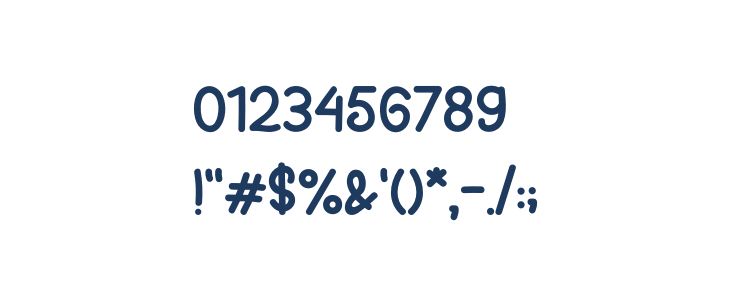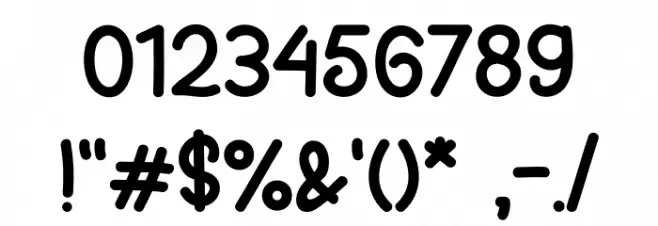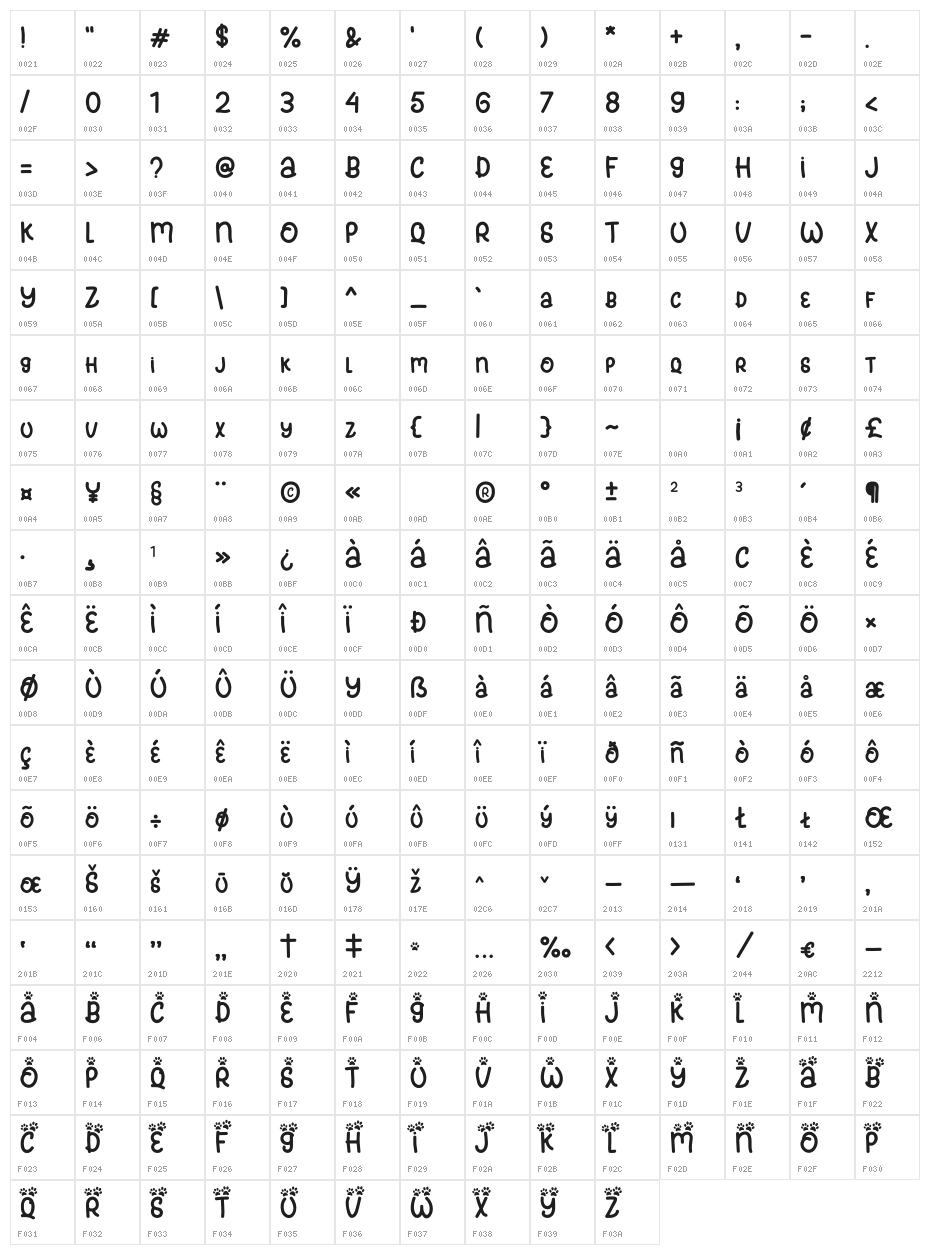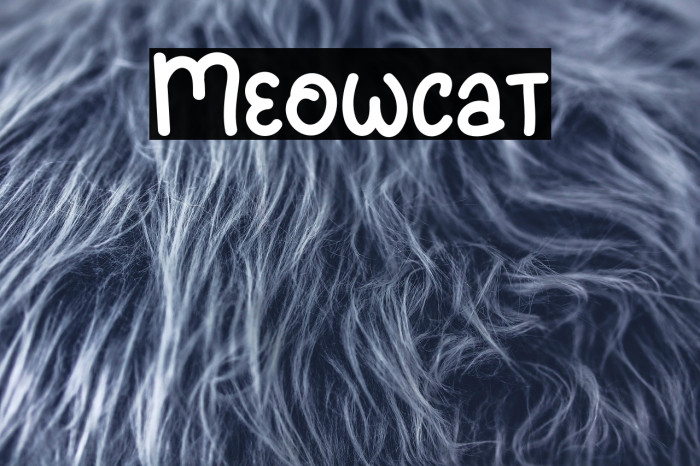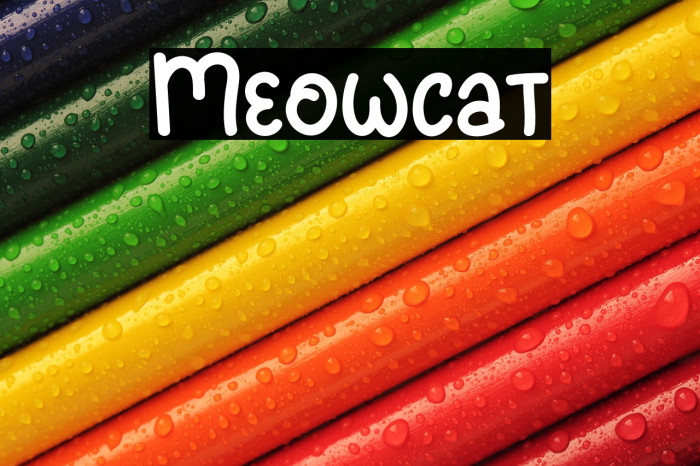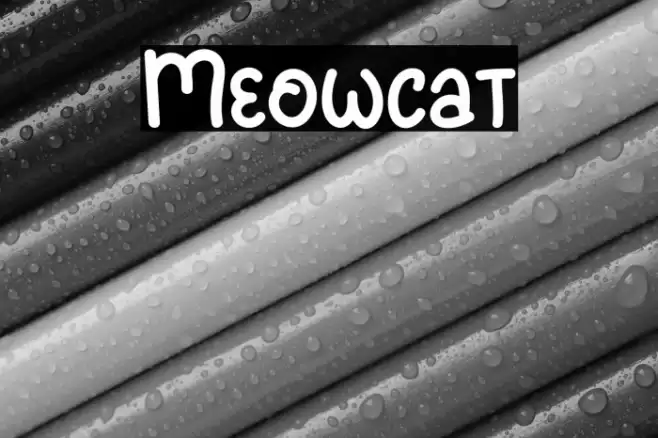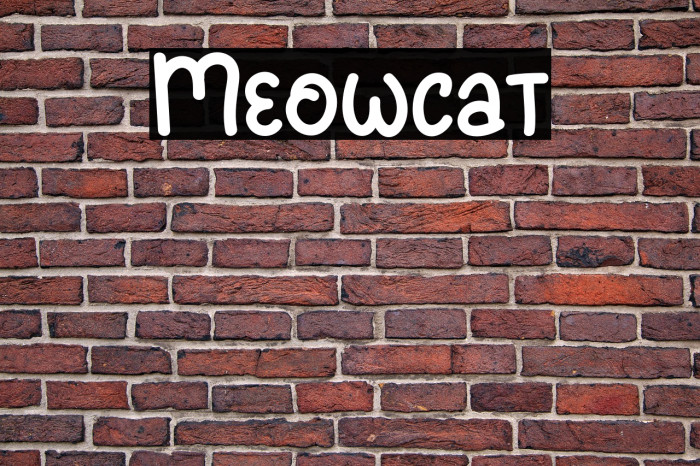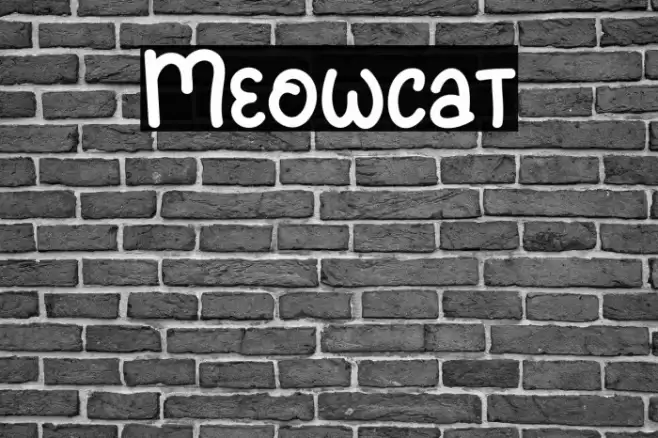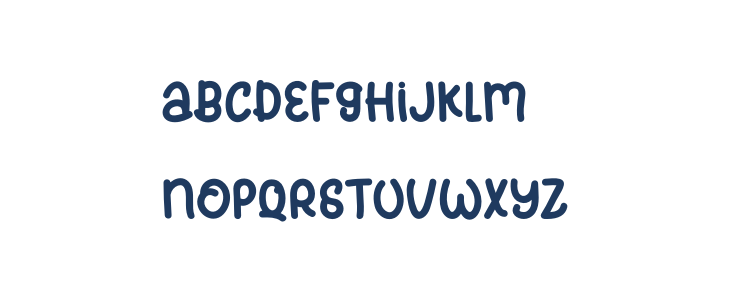
Meowcat Font
Meowcat Description
This playful and whimsical font features rounded, bubbly characters that exude a sense of fun and creativity. The letters are bold and slightly irregular, giving them a hand-drawn appearance that adds a personal touch. The uppercase and lowercase letters maintain a consistent style, with a slight tilt that enhances the casual feel. Numbers and special characters are equally expressive, making this font versatile for various uses. Its unique style is perfect for projects that require a friendly and approachable aesthetic.